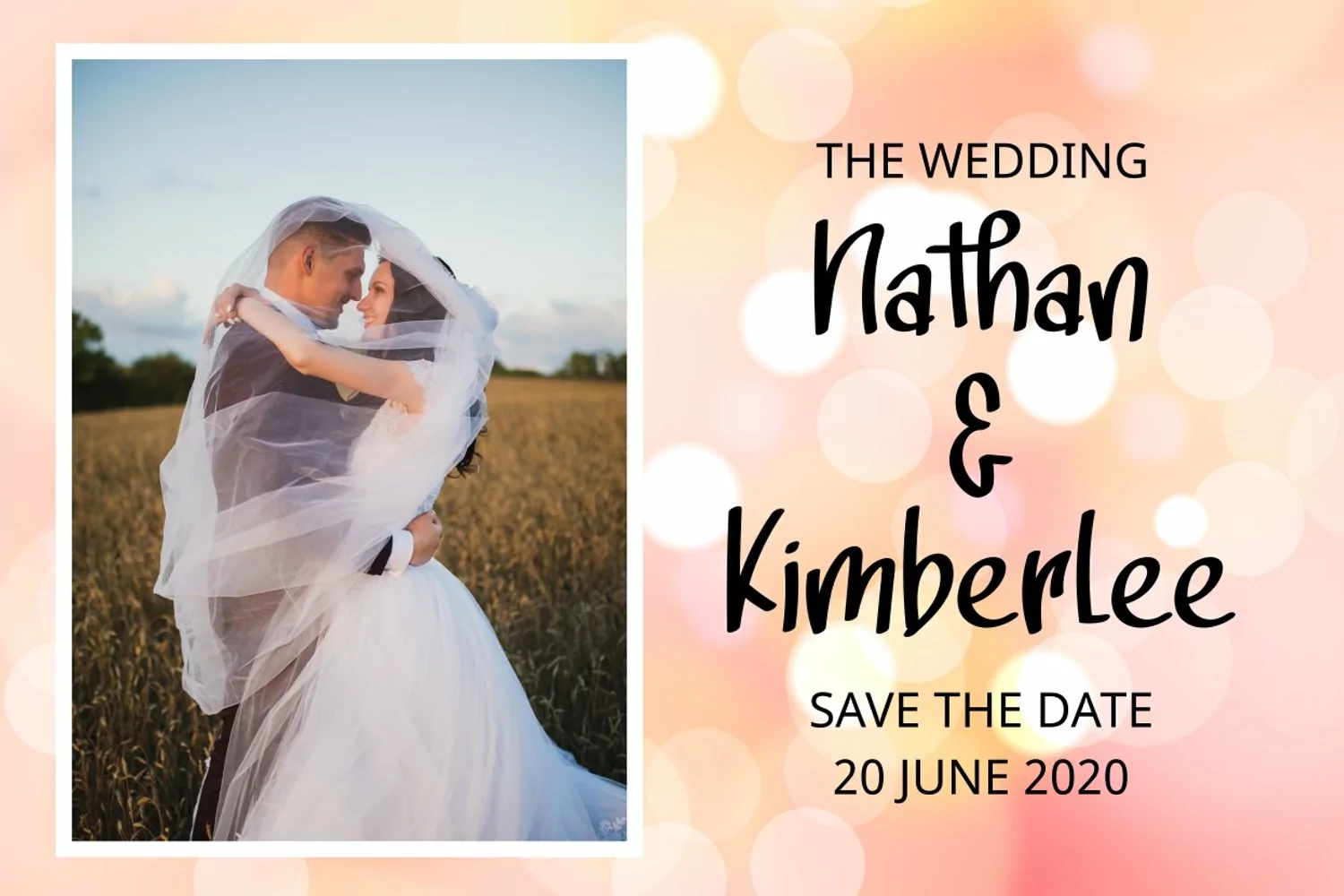
Full Jumps is a playful handwritten font that is perfect for many different design projects. It is a great font for Cricut and Silhouette crafters as I've made this font as smooth as possible for optimal cut performance.